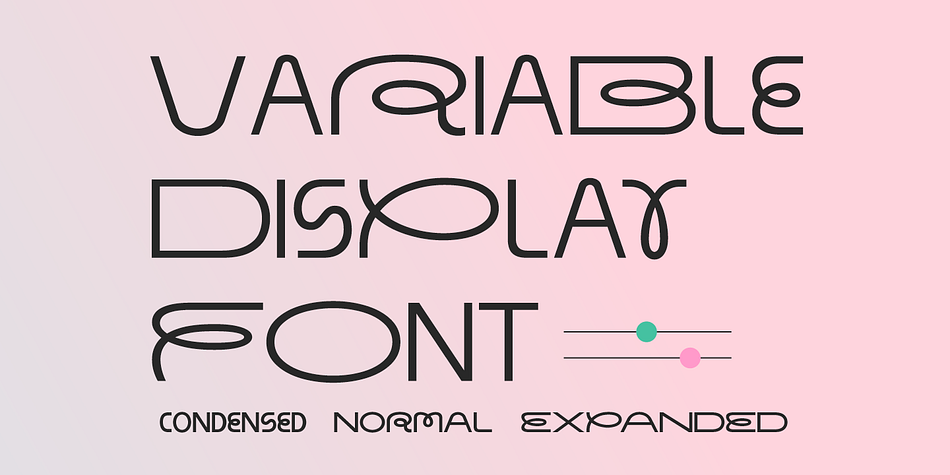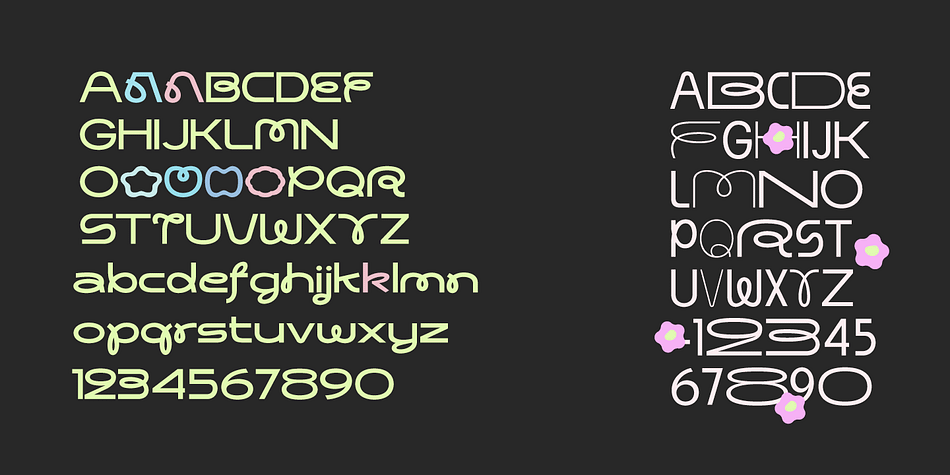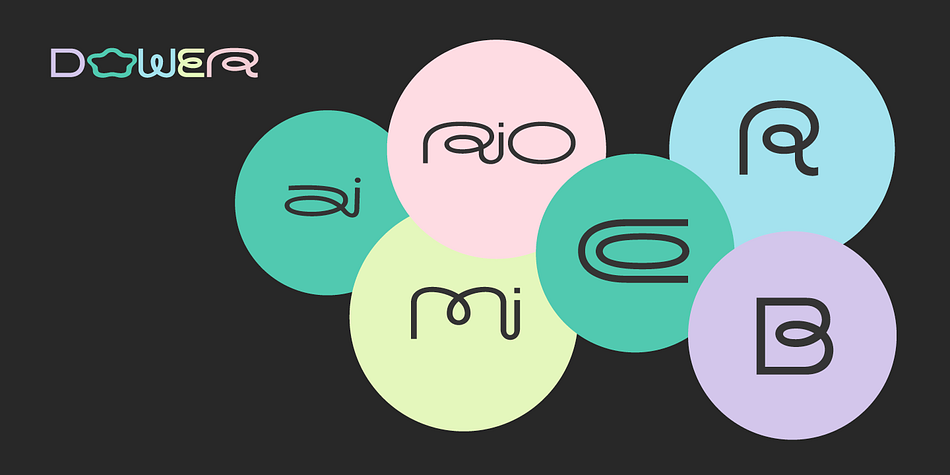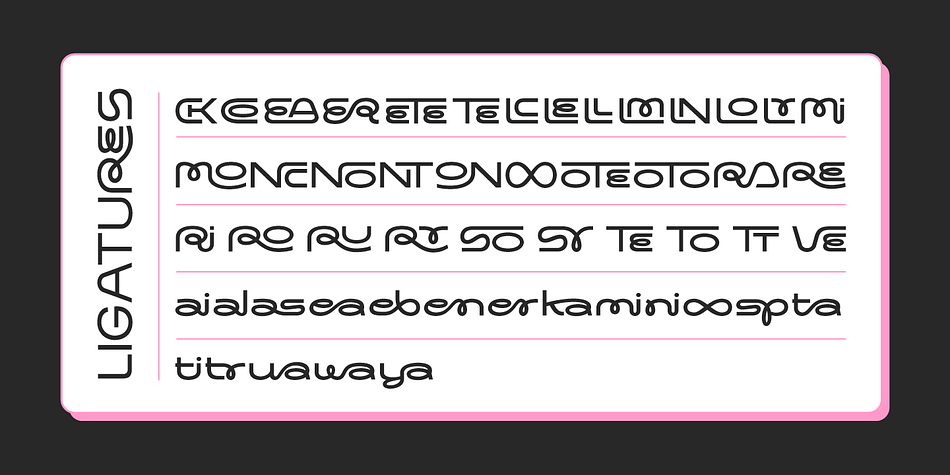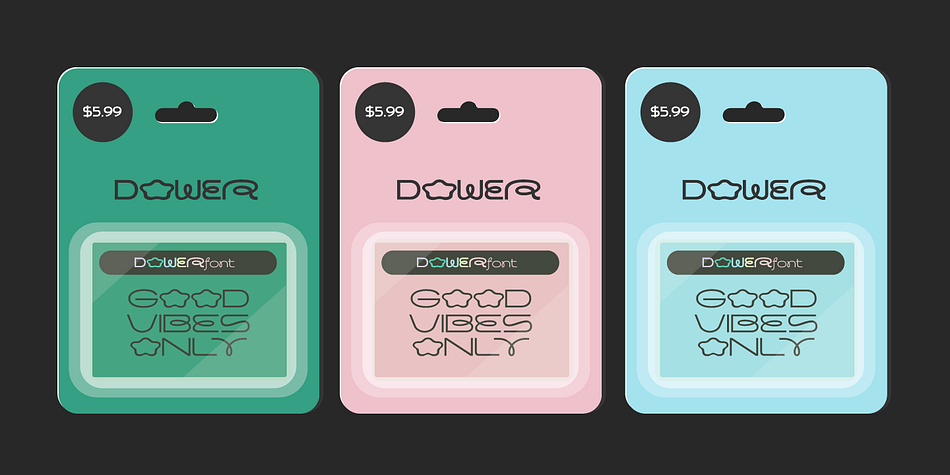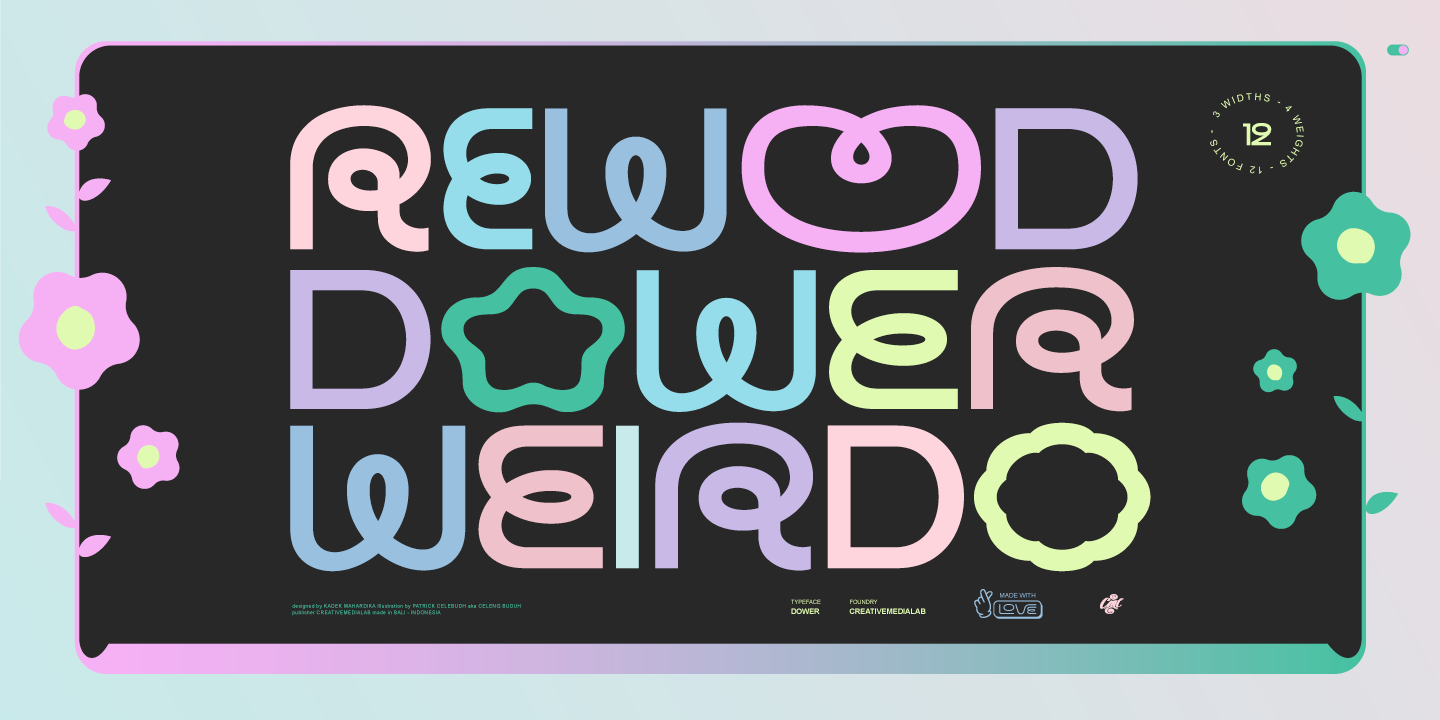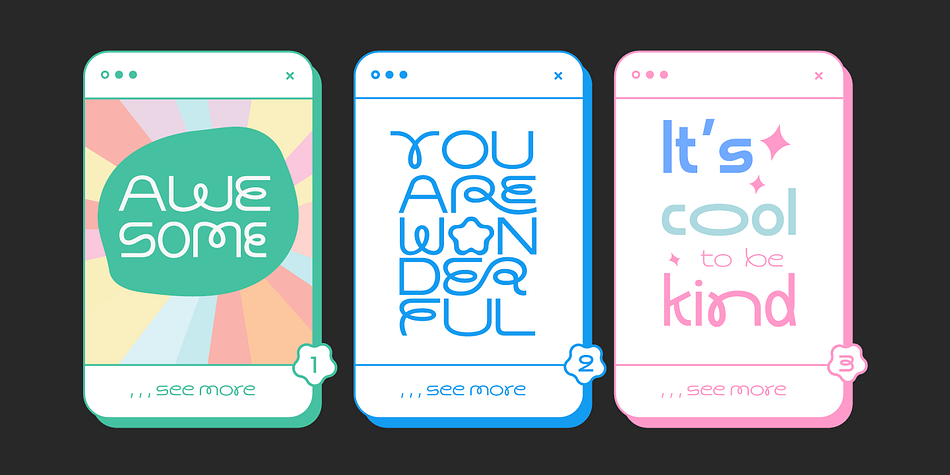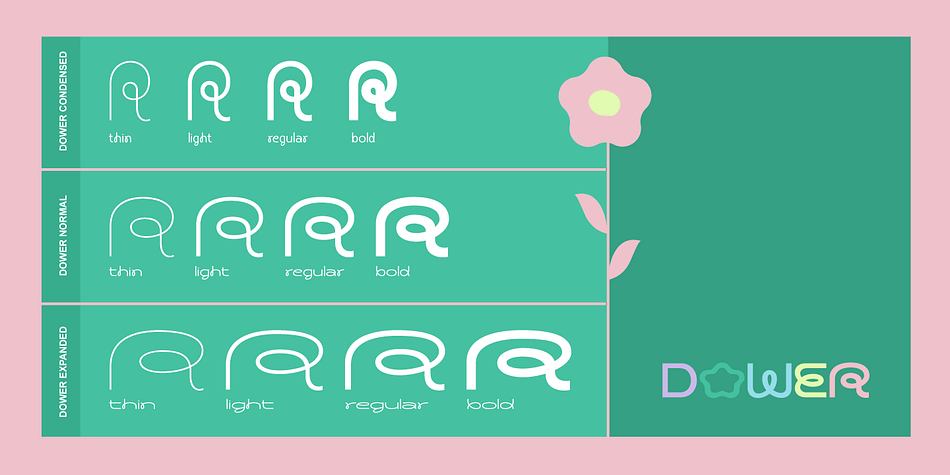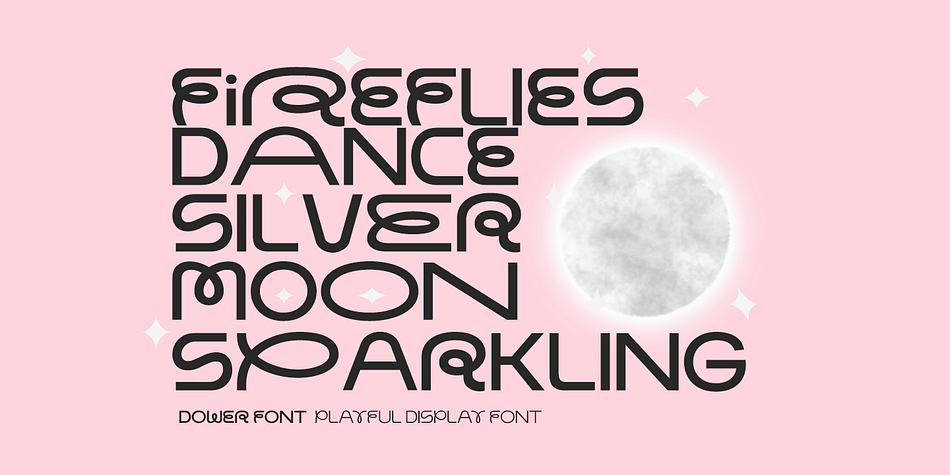
Dower
Dower is a display sans font family. This typeface has thirteen styles and was published by Creative Media Lab.
Dower is a playful decorative display font. this geometric sans serif inspired by doodle style and hand-drawn lettering. Dower contained three widths: Condensed, Normal and Expanded, four styles each, including dozens of ligatures.